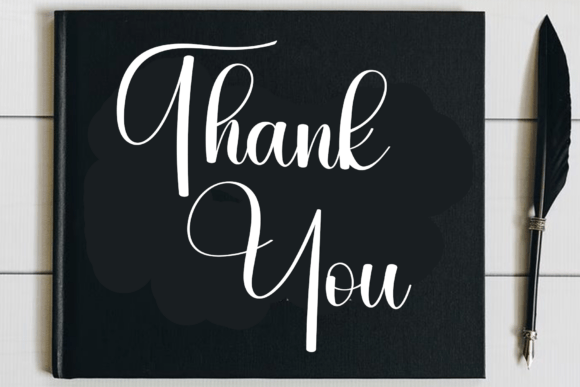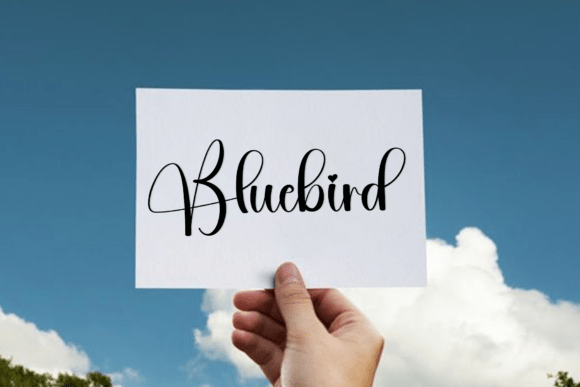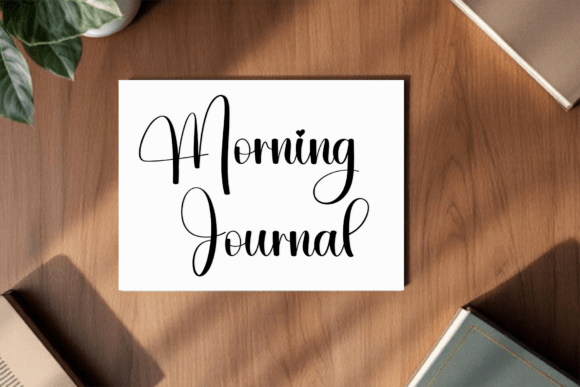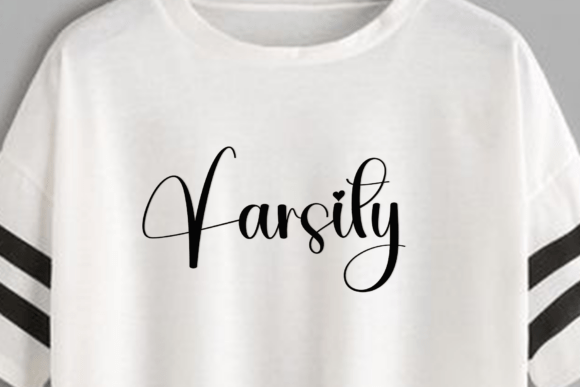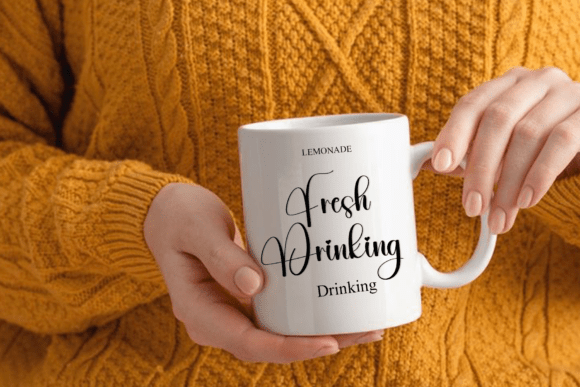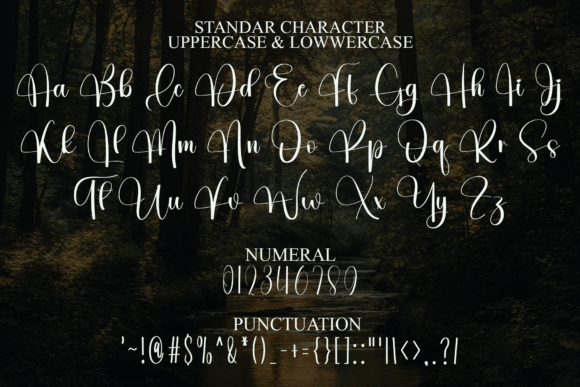
The Magical World of Disney Font: A Designer’s Delight
I’ll never forget the time I was working on a project for a children’s birthday party invitation. I had the design concept all sorted out, but I was stuck on finding the perfect font. That’s when I stumbled upon the Disney Font, and it was love at first sight! ✨ The playful, round strokes and charming hand-drawn aesthetic instantly captured the whimsical feel I was going for. In this article, I’ll share my experience with this delightful font, its features, and how to make the most of it in your designs.
An Honest Review of Disney Font
- ✨ The font’s casual and creative vibe makes it perfect for personal projects, invitations, and social media graphics.
- ✅ The round, playful strokes create a relaxed and approachable feel that’s hard to achieve with other fonts.
- 🎉 The charming, hand-drawn aesthetic adds a fun and unique touch to any design.
While Disney Font is an amazing addition to any design project, there are a few things to keep in mind: 🤔
- ⚠️ The font might not be suitable for formal or professional projects, as its playful nature might not convey the right tone.
- ⚠️ Some users might find the font a bit too casual or childish for certain designs.
The Backstory of Disney Font
While the origins of Disney Font might be unclear, it’s easy to imagine that it was inspired by the magical world of Disney. Perhaps a designer, inspired by the iconic Disney characters and movies, created this font to capture the whimsy and wonder of the Disney universe. Whatever its origins, Disney Font is sure to bring a touch of magic to your designs.
Q: What is Disney Font?
A: Disney Font is a casual and creative font that exudes warmth and friendliness, perfect for personal projects, invitations, and social media graphics.